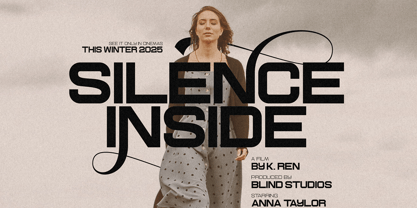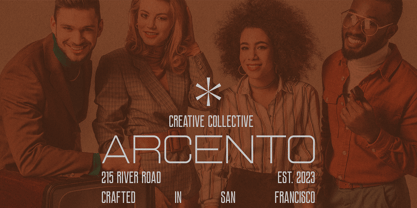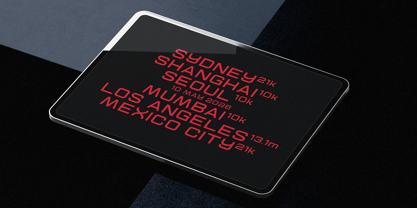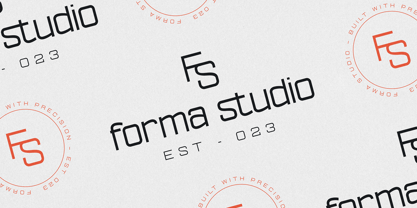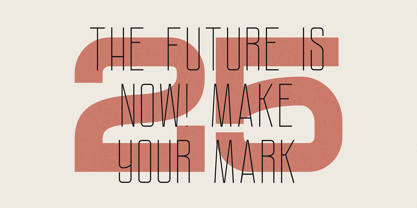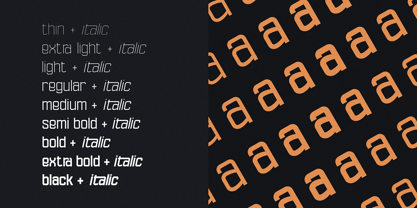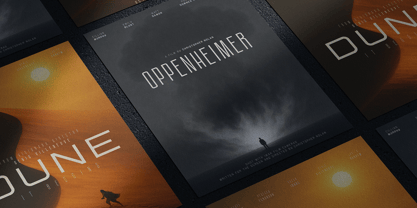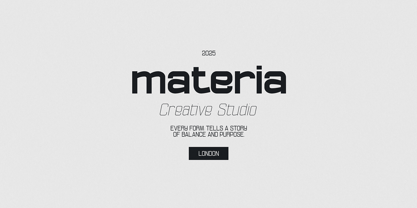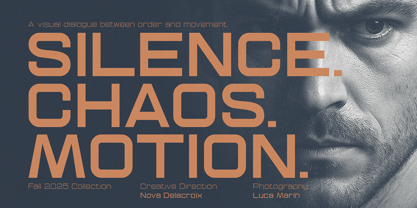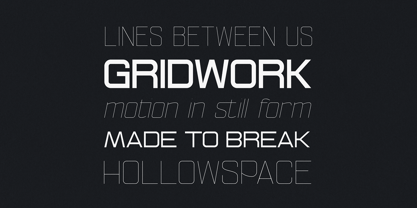
Ethere S
by VP Creative Shop
The Ethere S Font Family was designed by Vladimir Fedotov, Plamen Petrov and published by VP Creative Shop. Ethere S contains 160 styles and family package options.
Ethere is a modern sans-serif typeface crafted for creators, brands, and designers who value precision and versatility. Built to adapt across any creative medium, Ethere delivers a clean geometric form infused with subtle humanist touches — a balance of technology and emotion. With 162 unique font styles including weights from Thin to Black and matching Italics, Ethere offers full creative flexibility for branding, editorial design, packaging, posters, web, and UI. Its variable font support allows you to fine-tune width and weight seamlessly, giving total control over visual expression.
Designers: Vladimir Fedotov, Plamen Petrov
Publisher: VP Creative Shop
Foundry: VP Creative Shop
Design Owner: VP Creative Shop